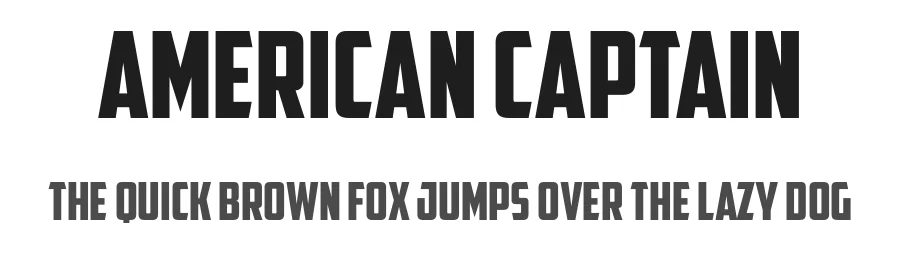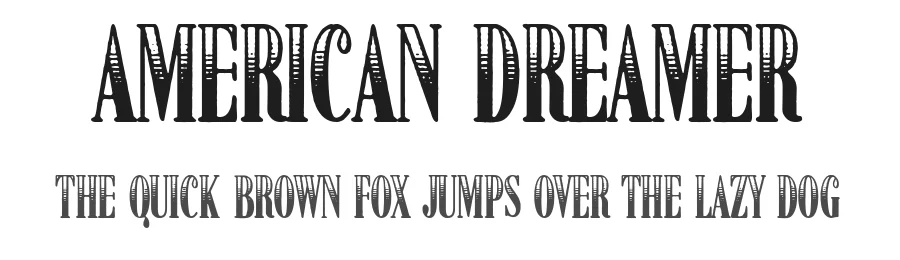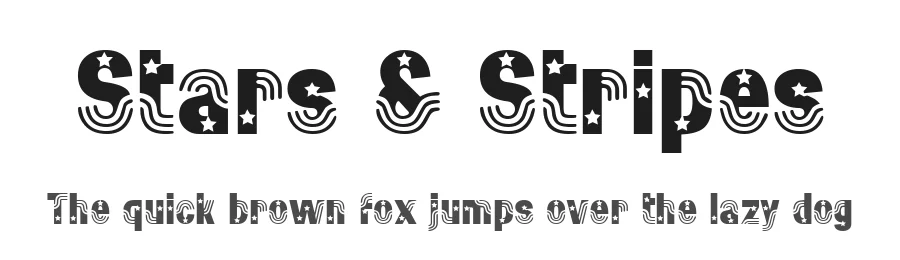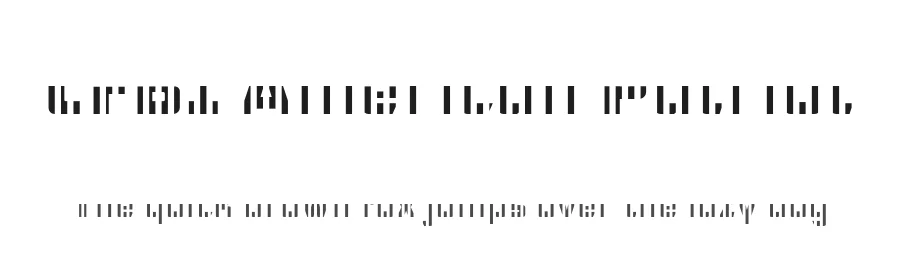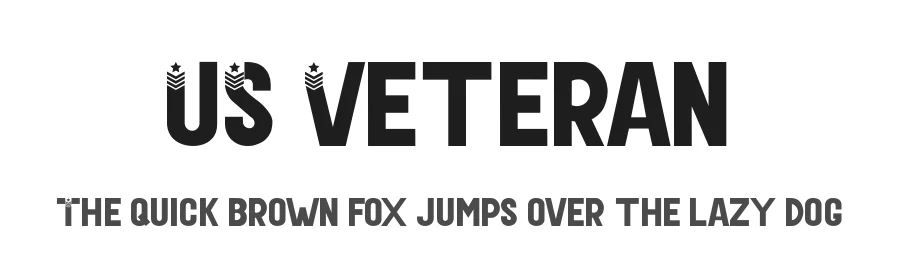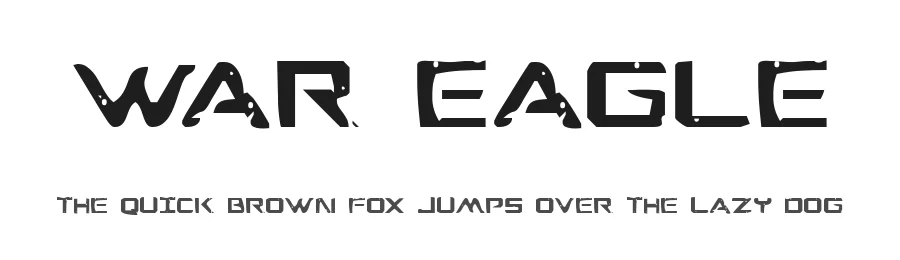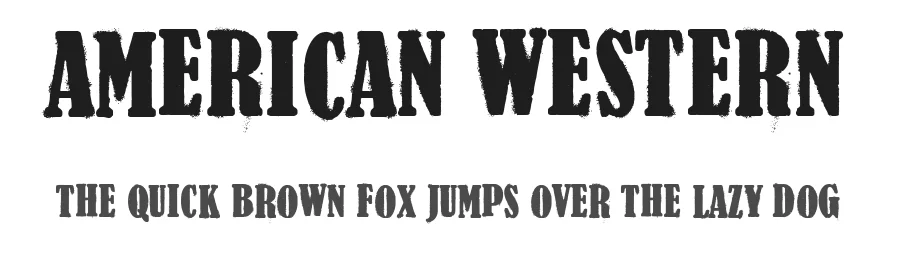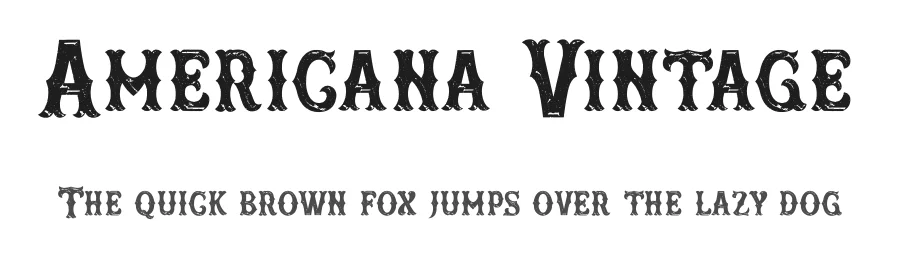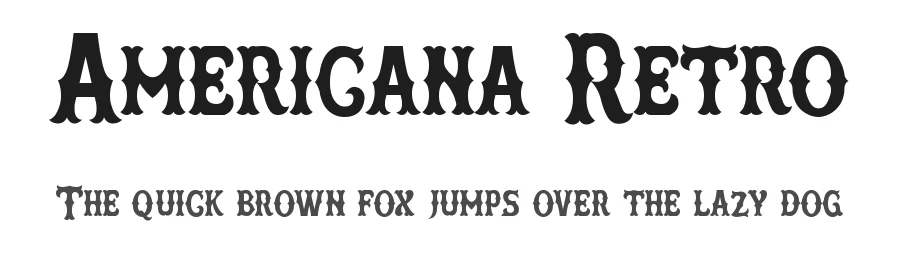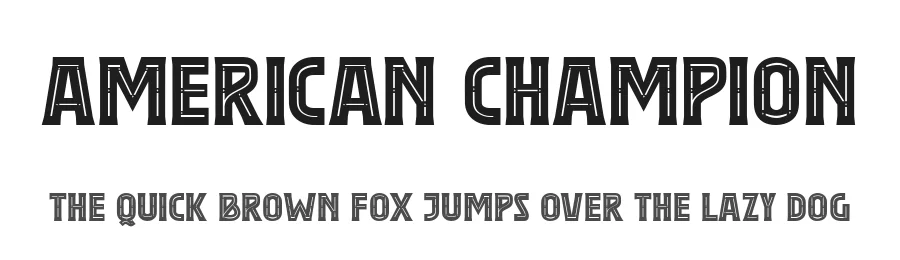
American Captain
by Fontry
American Dreamer
Stars & Stripes
by Brøderbund Software
CFB1 American Patriot
by Fontry
US Veteran
War Eagle
by Iconian Fonts
American Western
Americana Vintage
by Mocha Frappuccino
Americana Retro
by Mocha Frappuccino
American Champion
by Fikryal studio
Freedom45
by Khurasan™
Union Rodeo
by Blankids
Air Americana
by Tiago Sá
USAAF Stencil
by TwoGuns
American Average